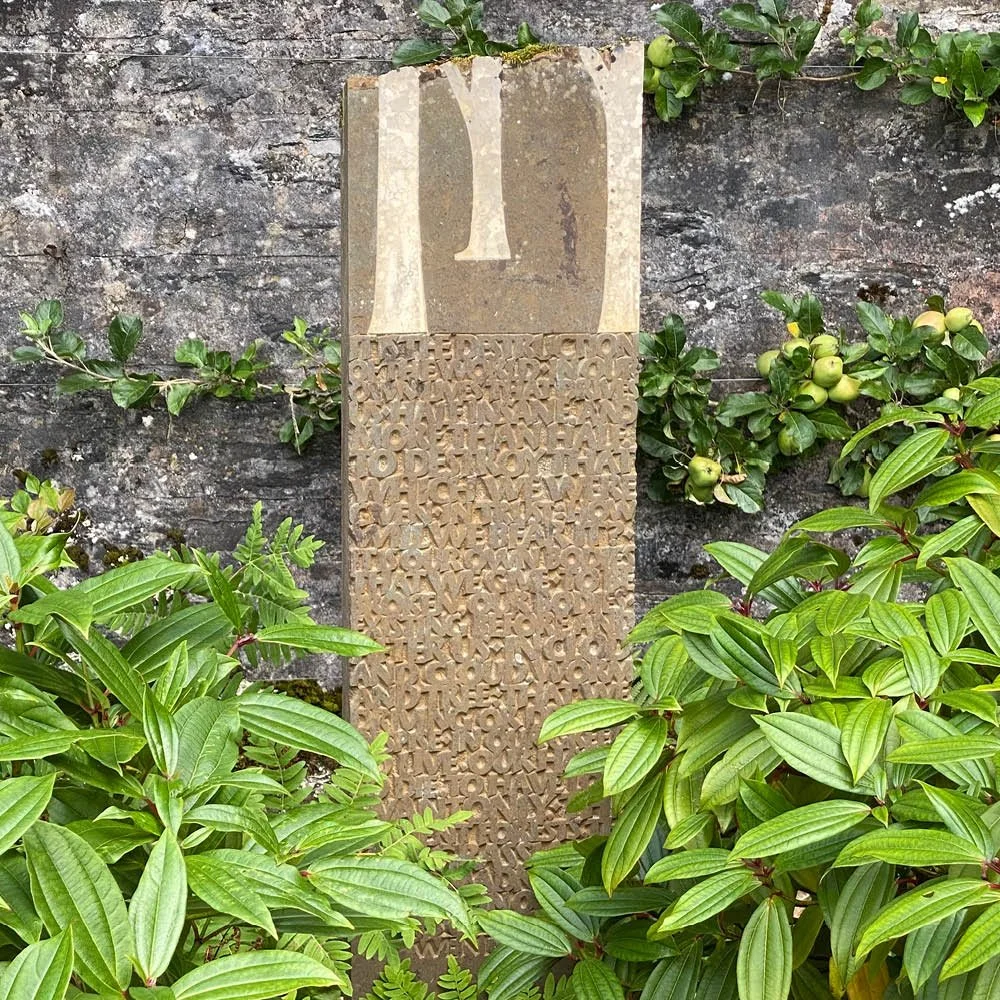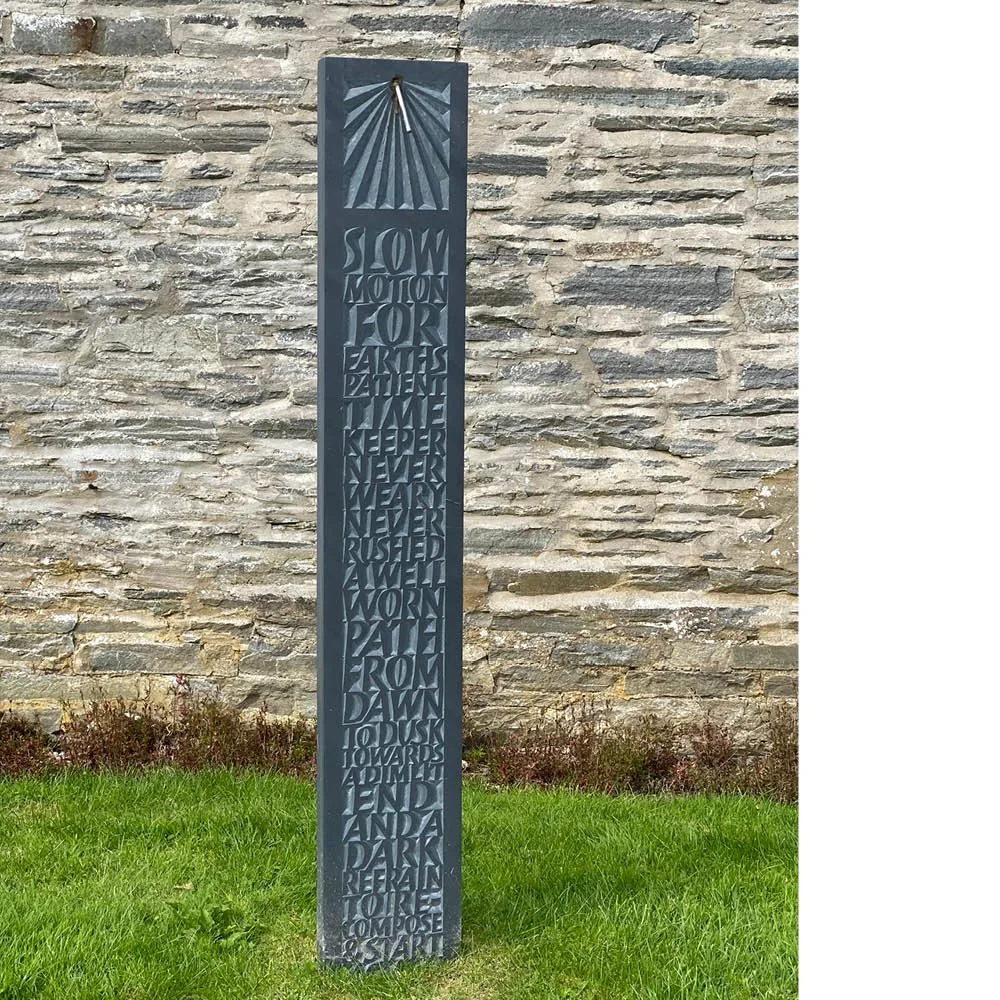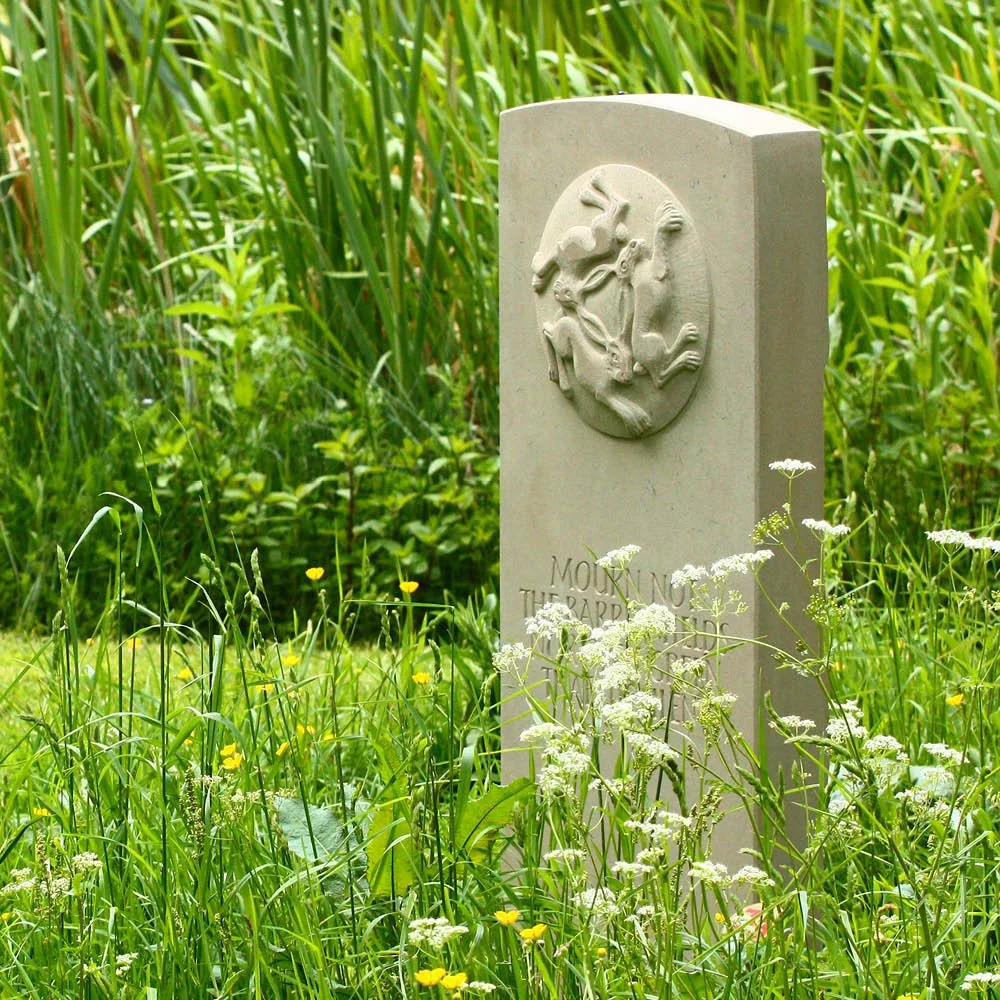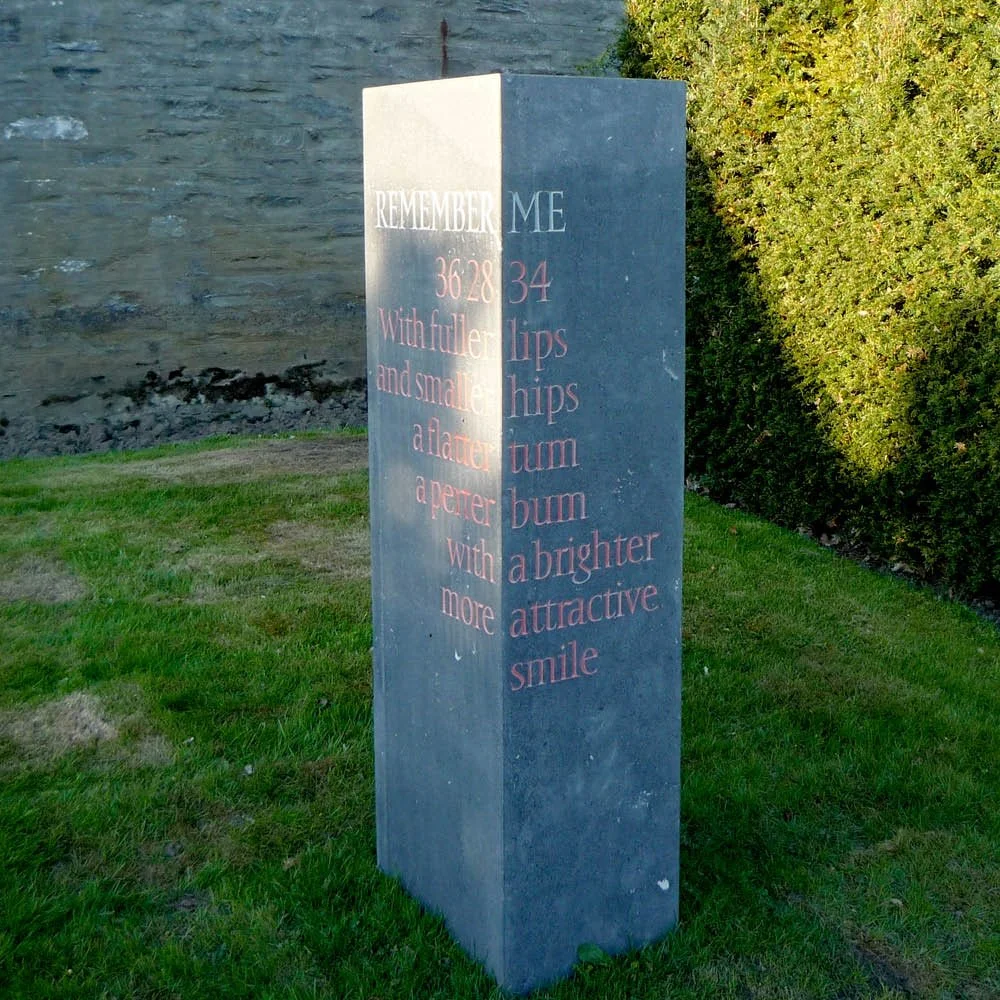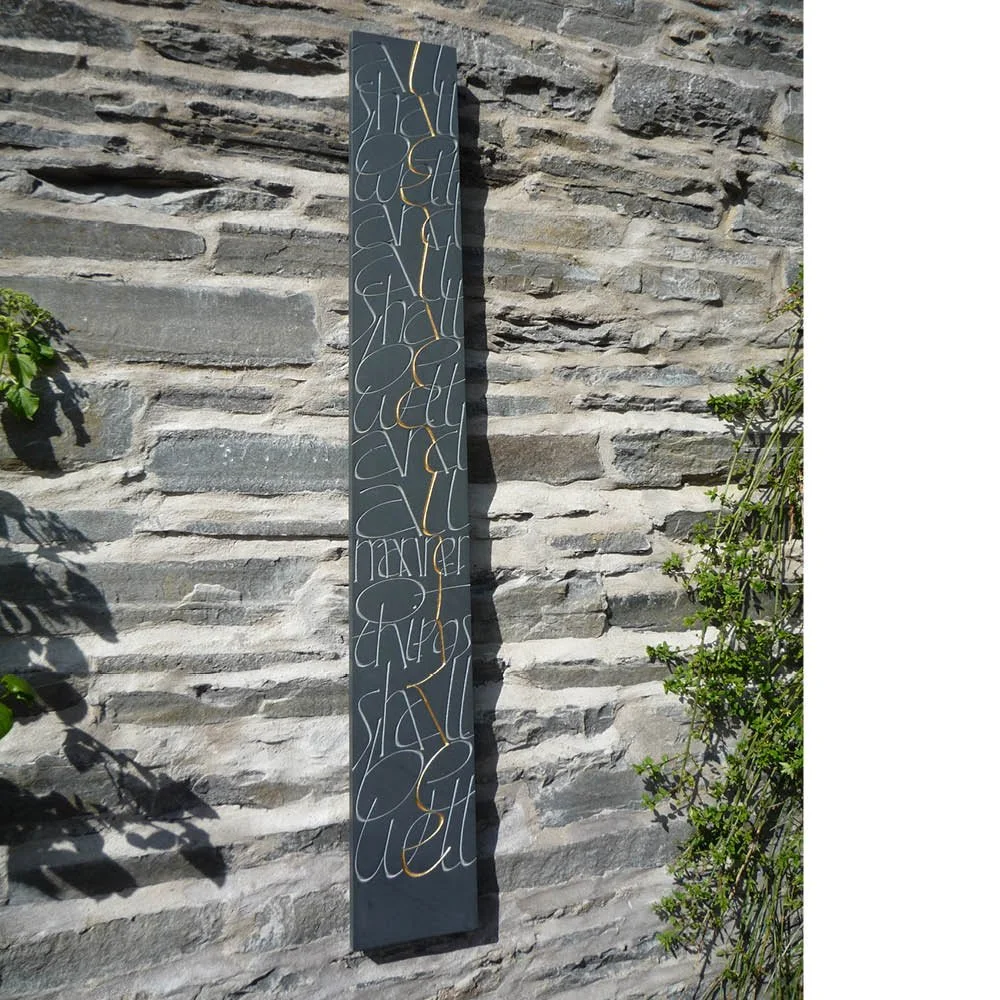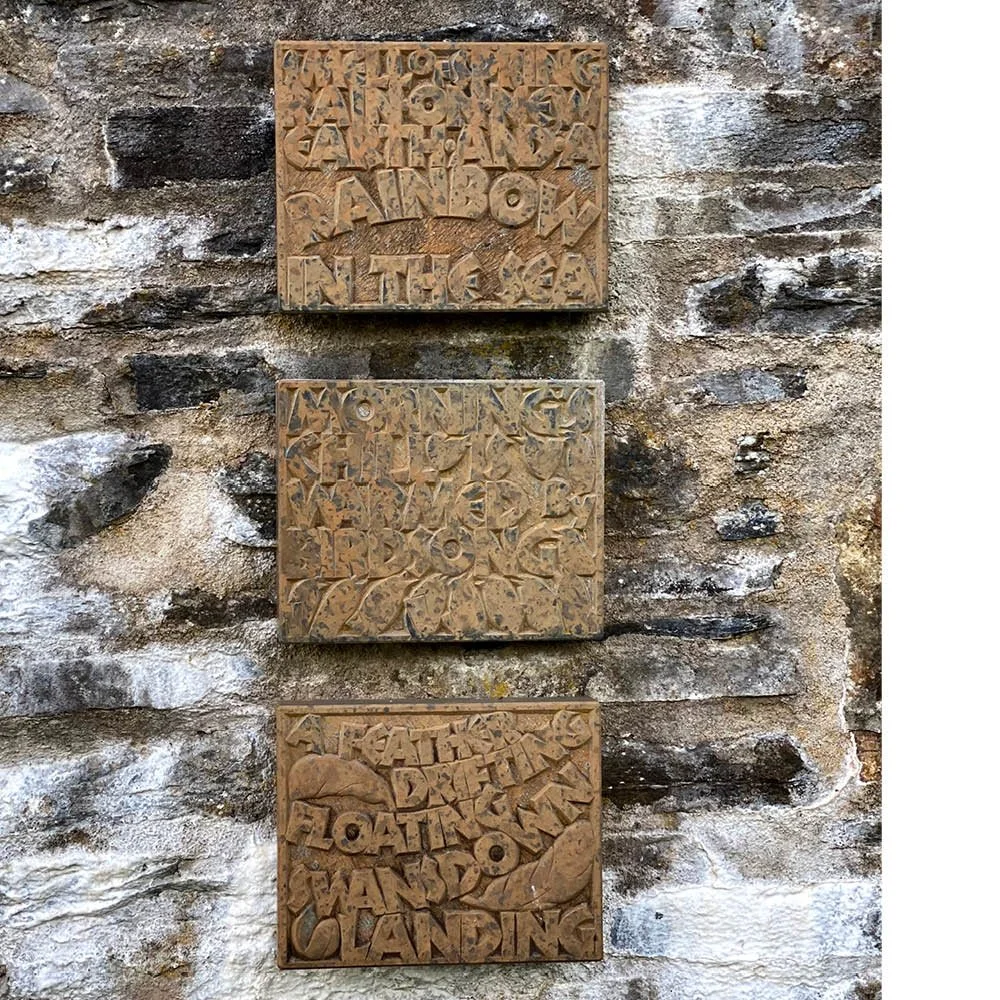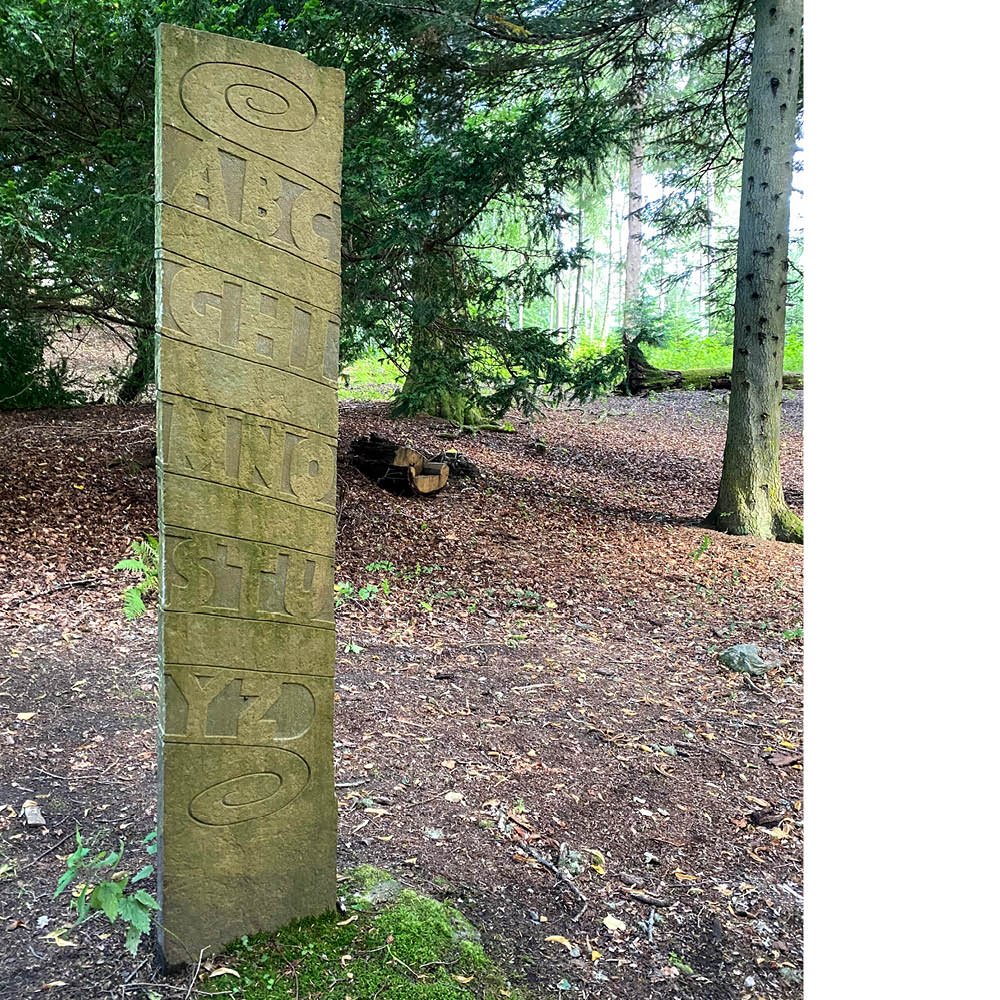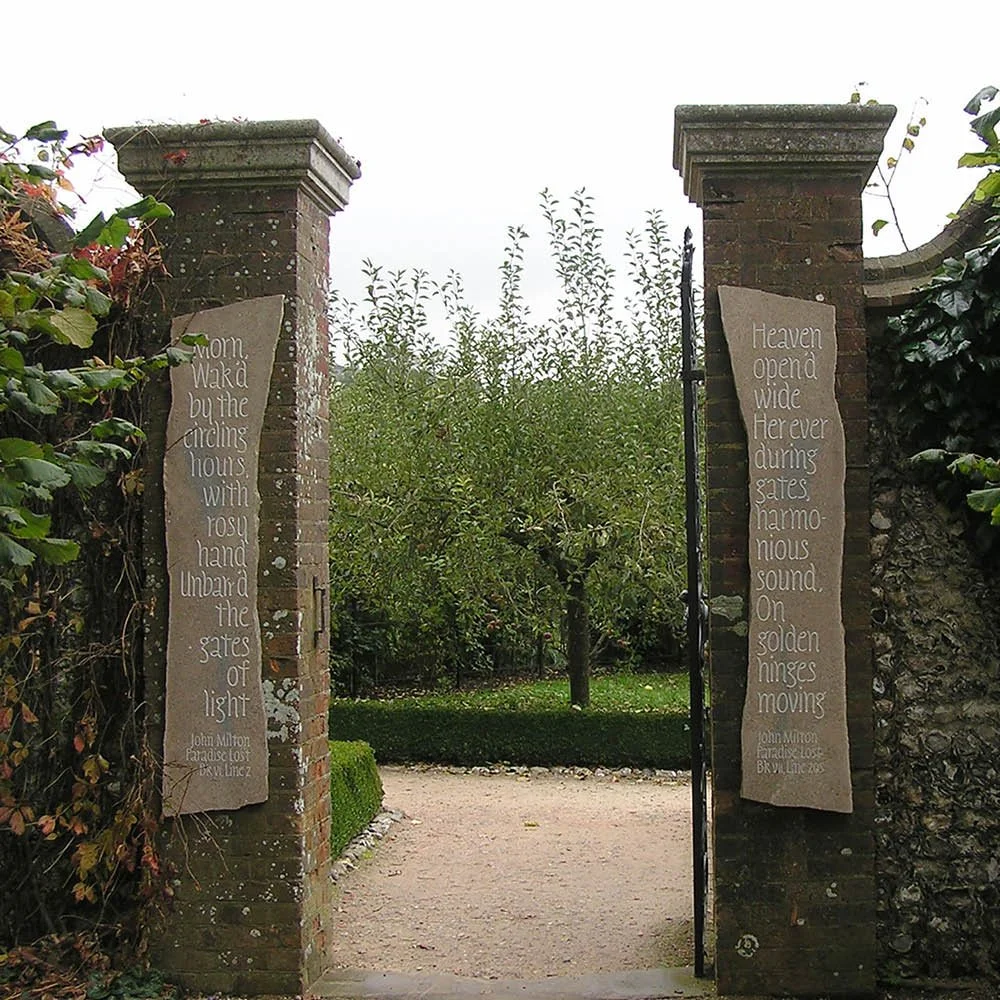
Blair Castle, Perthshire
Eight works from our Art & Memory Collection are found in and around the nine-acre walled Hercules Garden at Blair Castle. The garden also contains other examples of the letter-carver’s art.
All the works in our collection have a memorial theme, created without client or churchyard restrictions. Carved by some of the UK’s foremost lettering artists, these show the range and possibilities of contemporary letter carving.